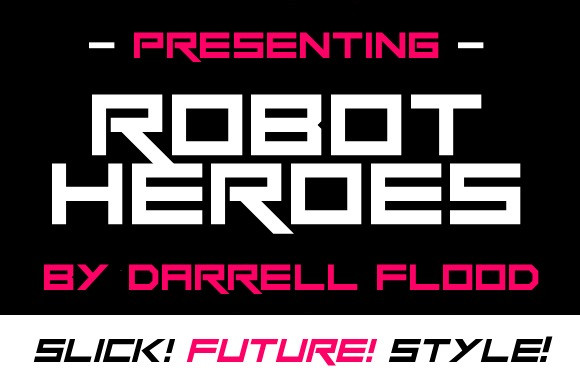
Robot Heroes Font
Robot Heroes Font – A futuristic, dynamic font in a slick sci-fi style! Perfect for alien encounters, cutting edge tech and modern music themes.